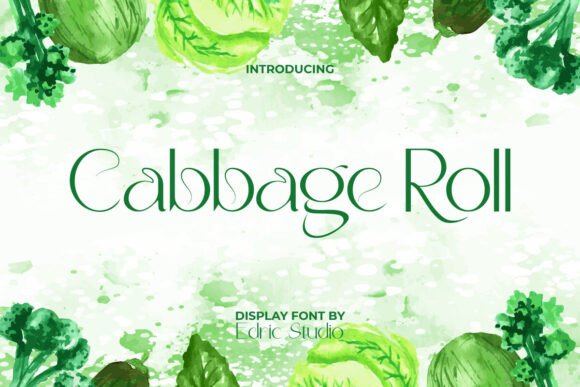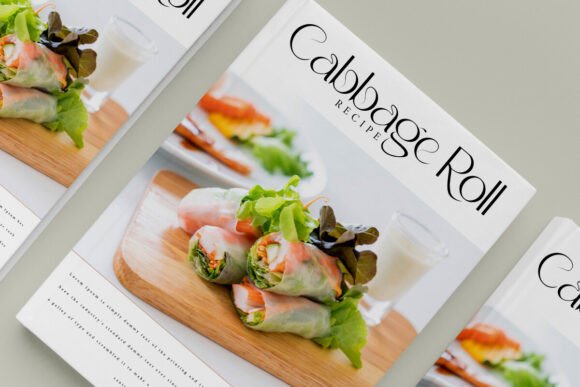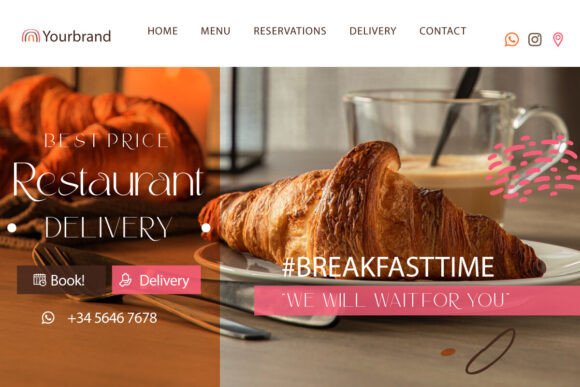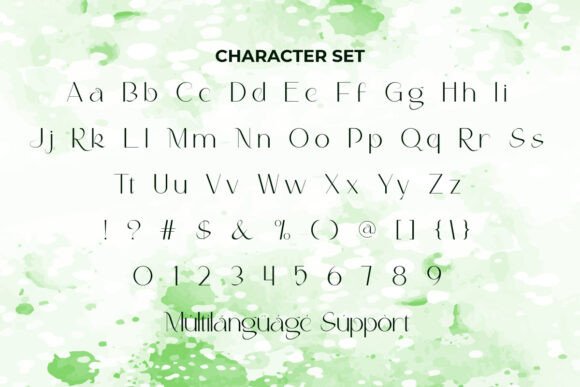
Cabbage Roll Font
About the Cabbage Roll Font
Elevate your designs with Cabbage Roll Font, a font that combines sophistication with readability. Cabbage Roll Font is a simply elegant and modern serif display font that is inspired by a healthy vegetable. That’s amazing for whatever your design is, such as apps, blogs, brochures, catalogues, cover, flyer, header, logos, menu, packaging design, poster, product label, quotes, screen print, signage, stationery, sticker, title, website, and more.
Cabbage Roll Font’s elegant modernity makes it ideal for headlines, logos, and short impactful text in branding materials, posters, and packaging. Its refined serifs lend themselves well to high-end products or sophisticated campaigns. However, its delicate nature makes it less suitable for body text or UI elements requiring high readability in smaller sizes.
Pairing Cabbage Roll Font with a clean sans-serif like Open Sans for body text creates a strong visual hierarchy. For a more playful feel, consider pairing it with a rounded geometric sans-serif such as Circular Std. A script font like Great Vibes could add a touch of vintage charm to specific design elements.
The overall personality of Cabbage Roll Font is sophisticated and understated, yet with a subtle boldness. It projects a sense of modern elegance and refined quality, making it a perfect choice for brands emphasizing premium aesthetics or timeless design.
Cabbage Roll Font Usage Examples
Cabbage Roll Font Example